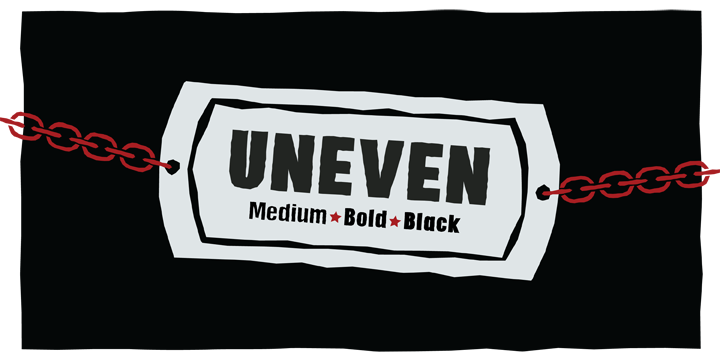
Uneven Font Family comes in three weights; medium, bold and black. It was designed to be used in posters, graphic works and so on. With its hubbly design, it seems much more cute, warm and is easy on the eye. There are stylistic alternates in the whole capital letters and in some small letters. In addition, this font family has been built up with privately prepared ornaments.